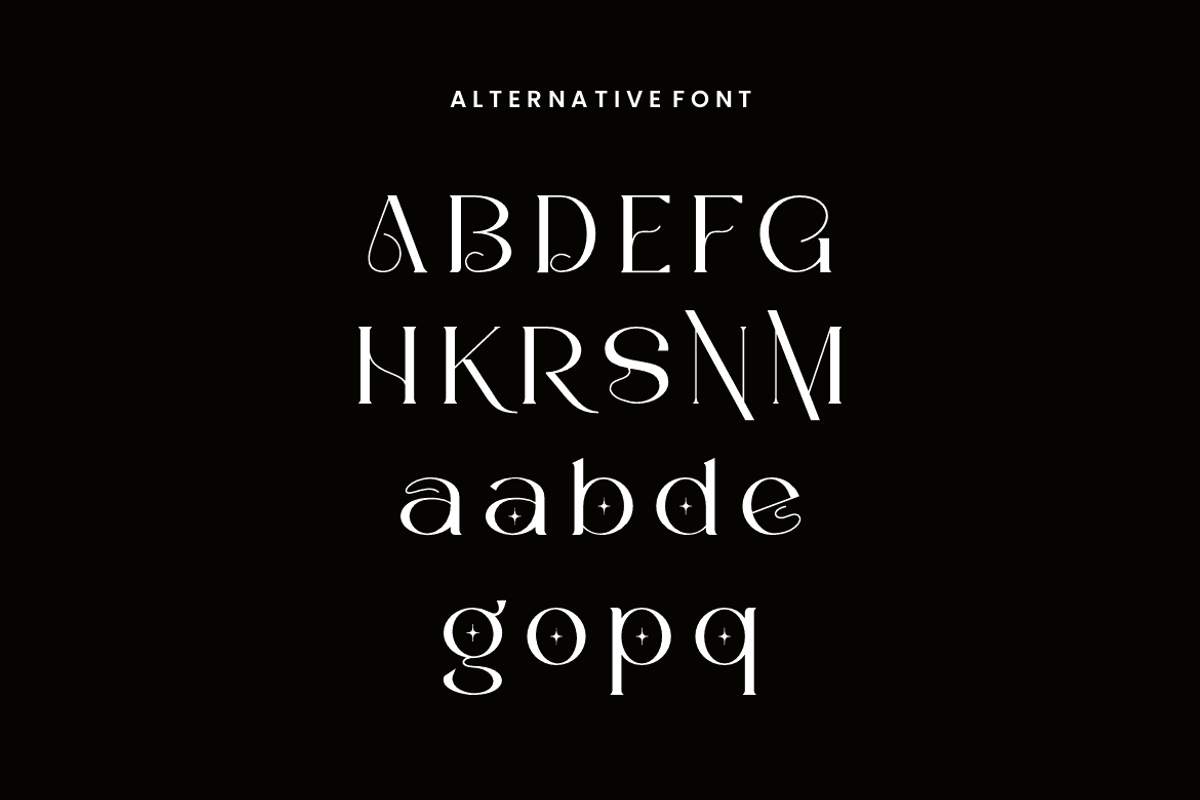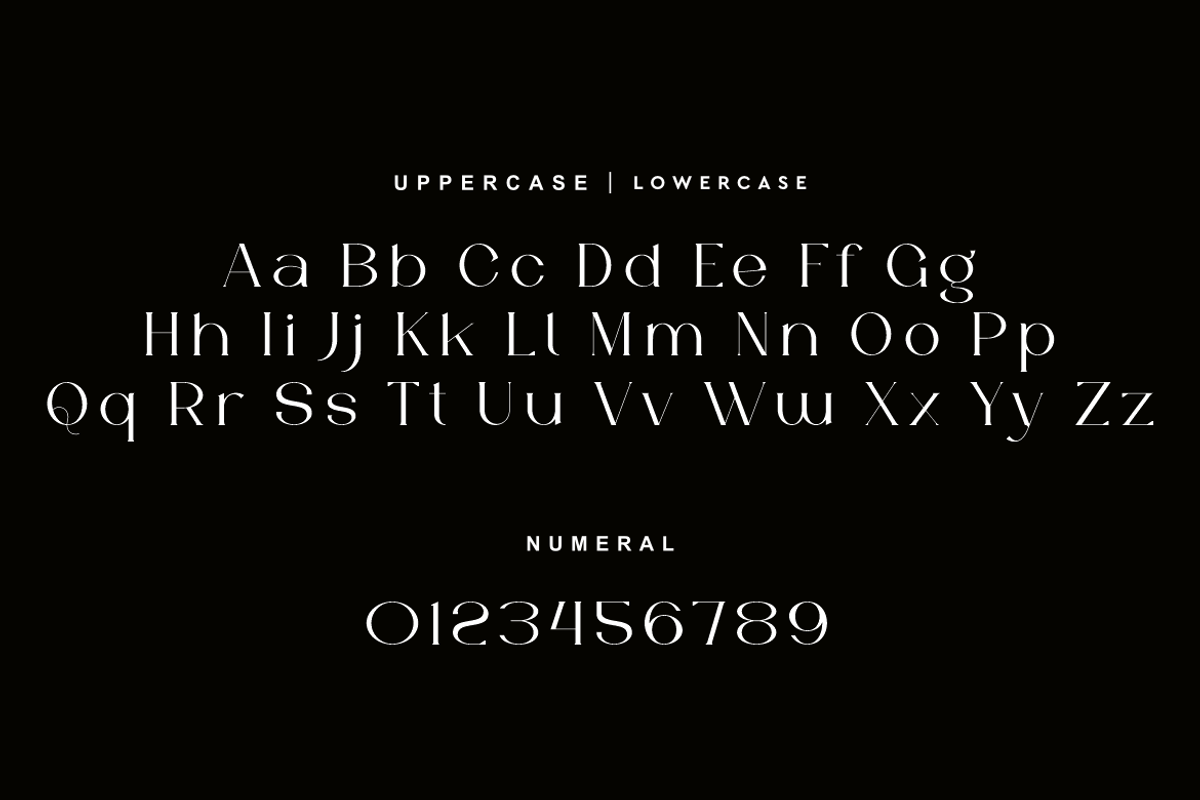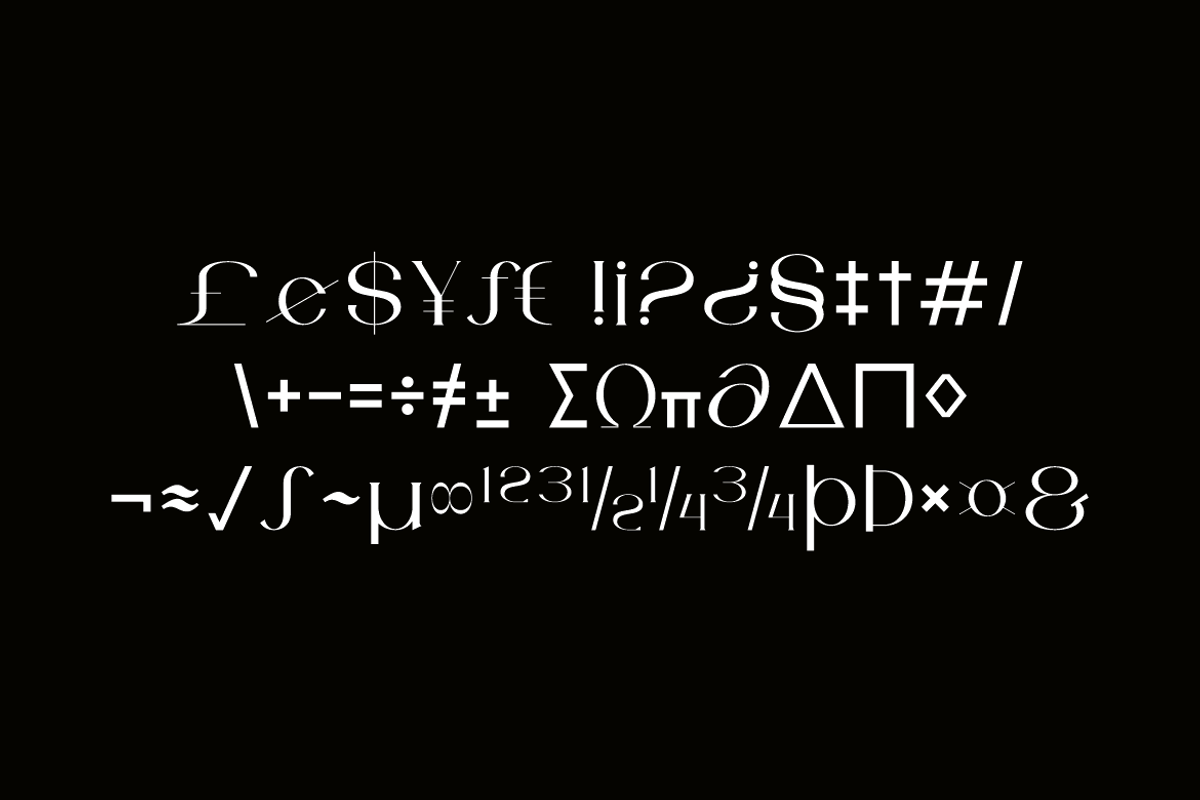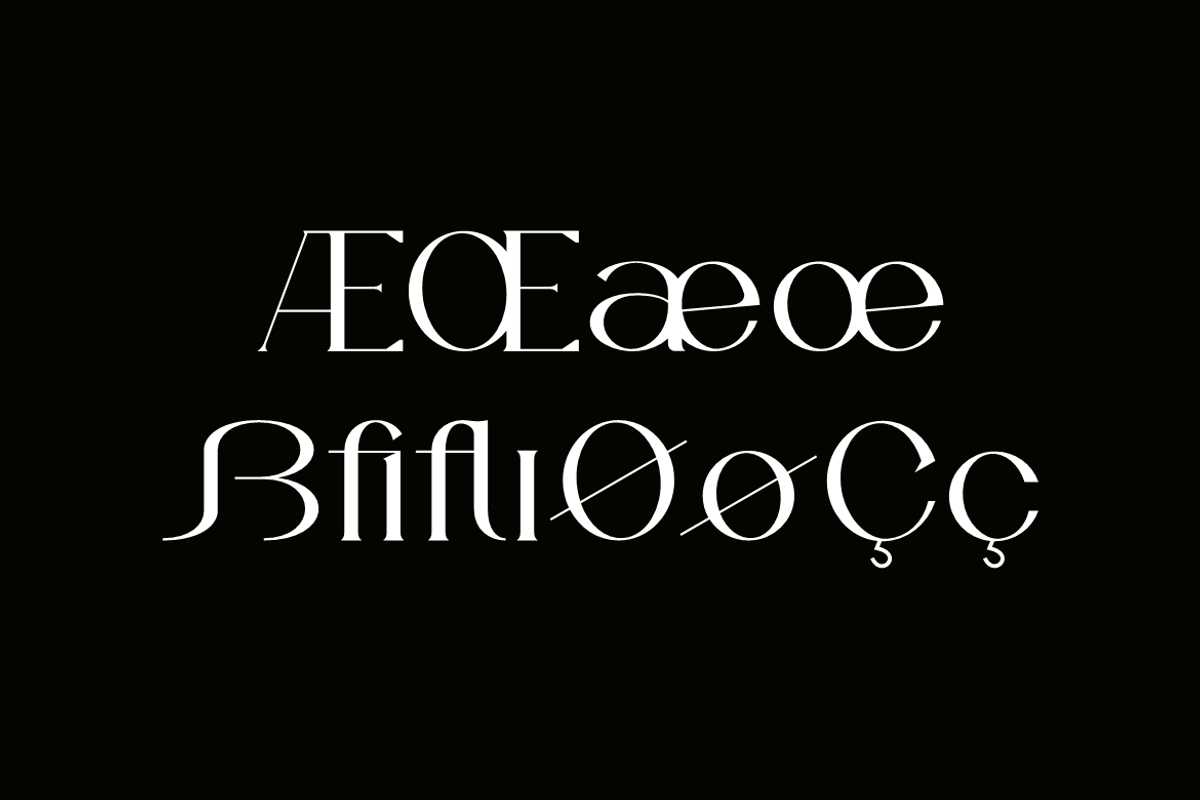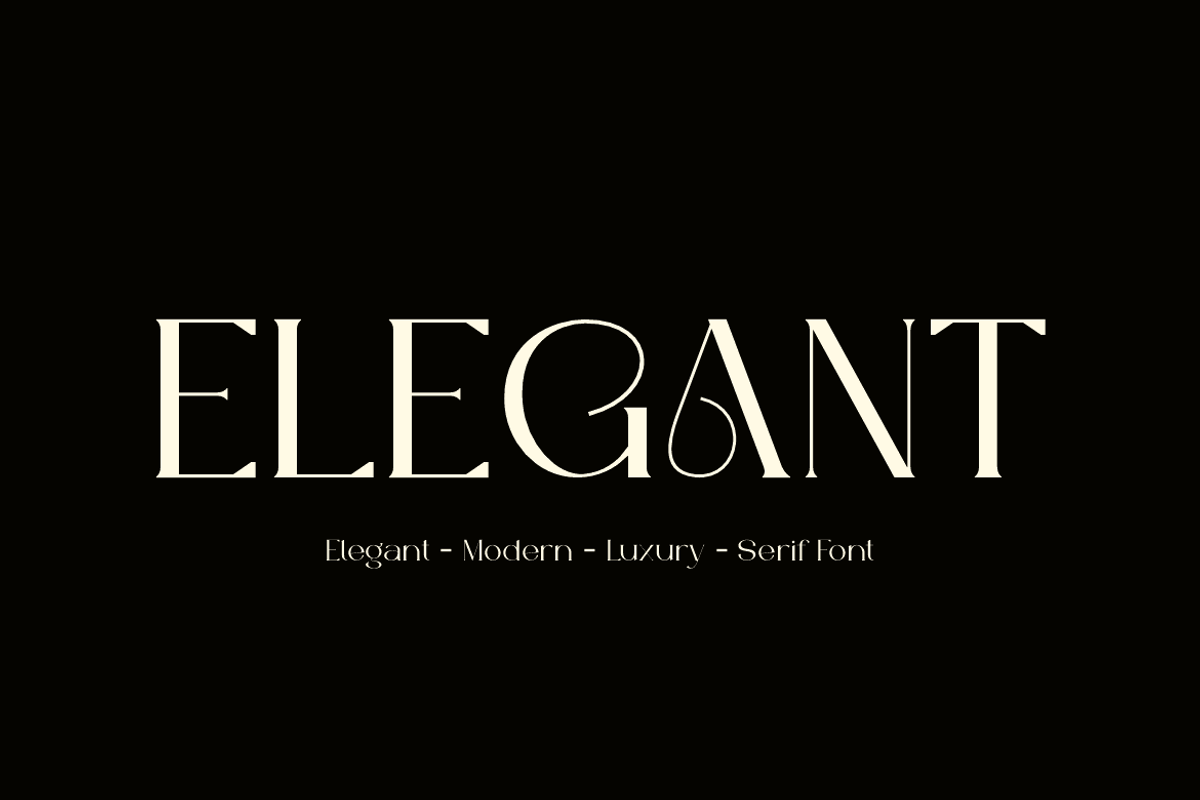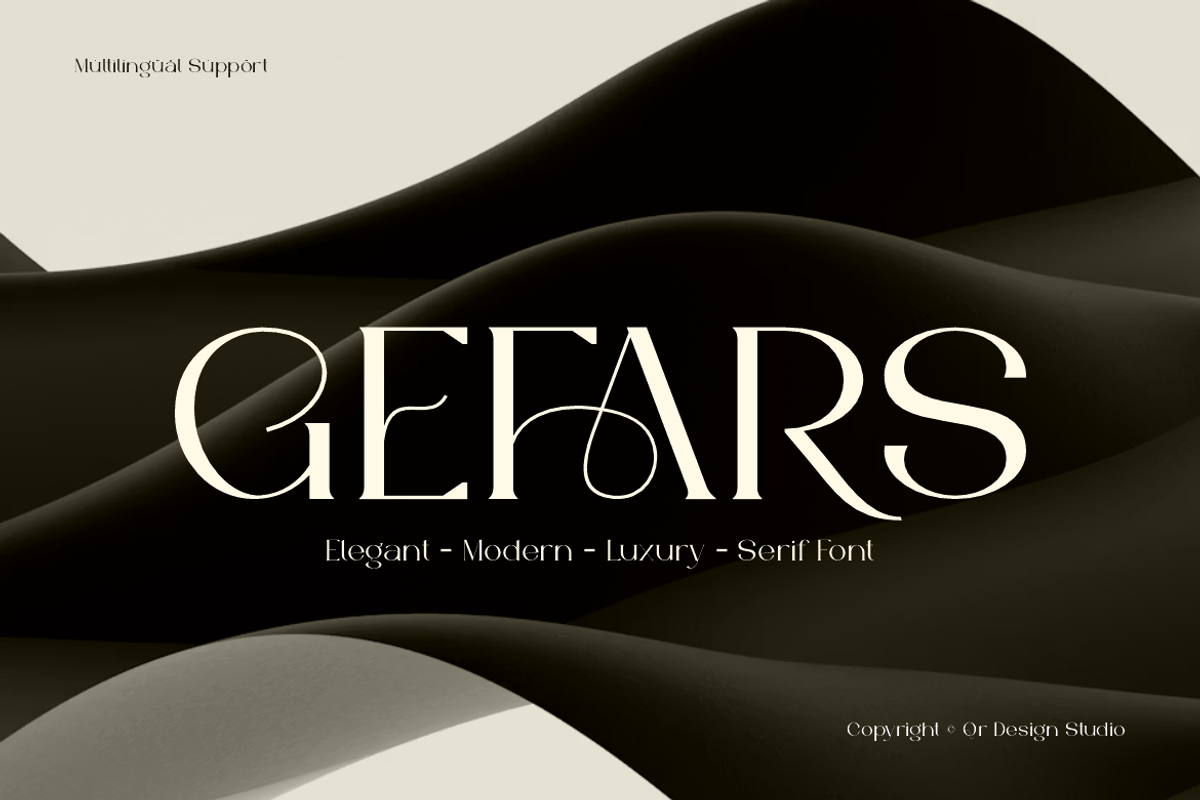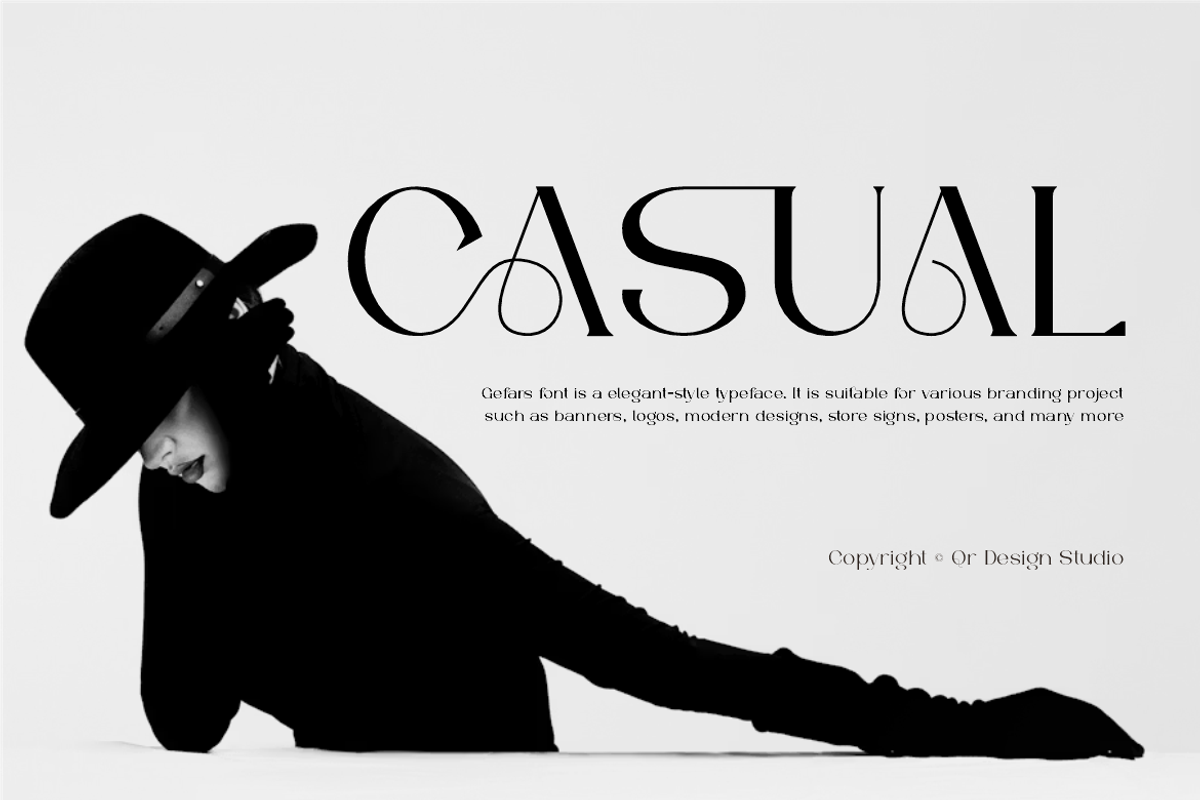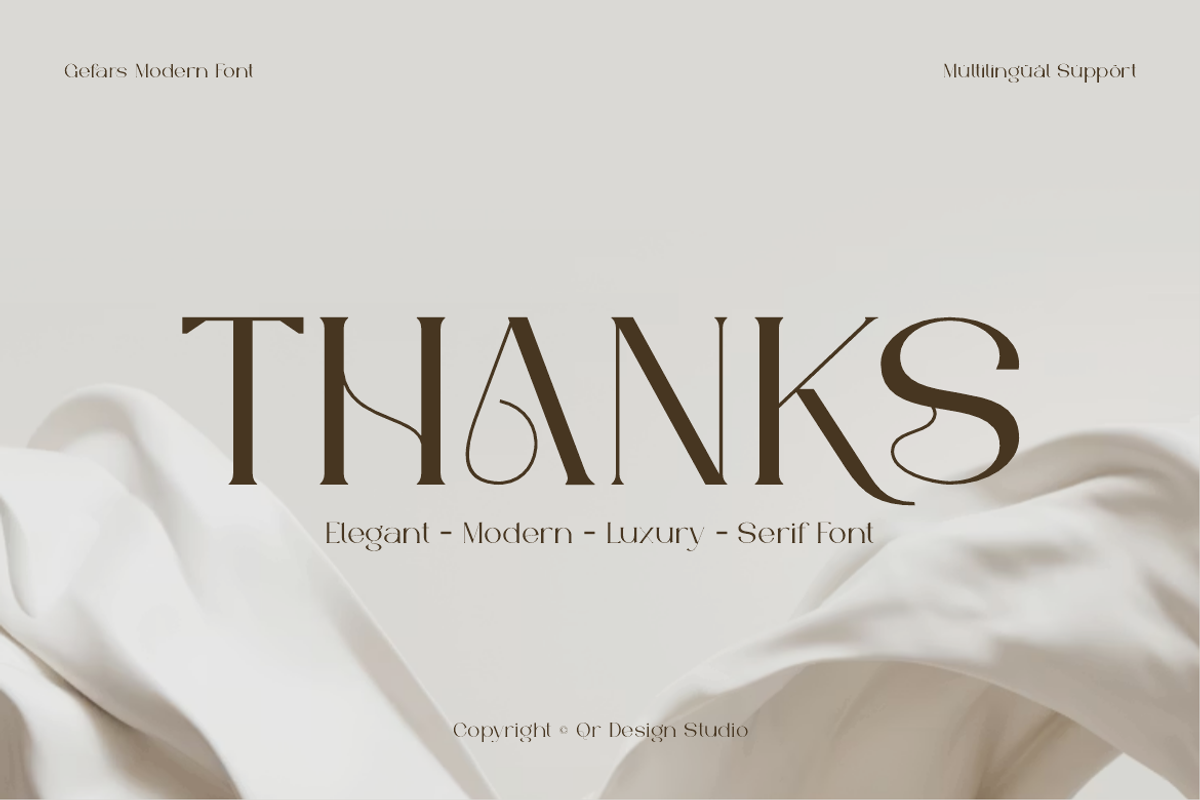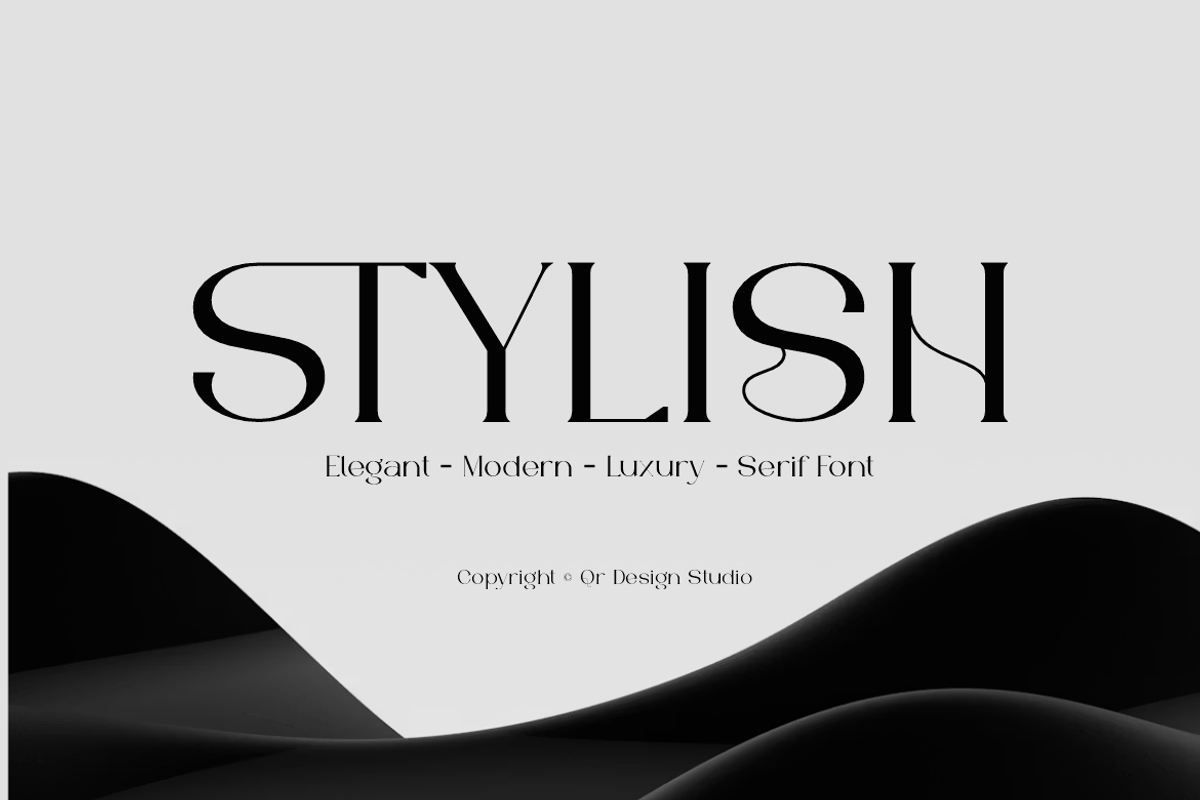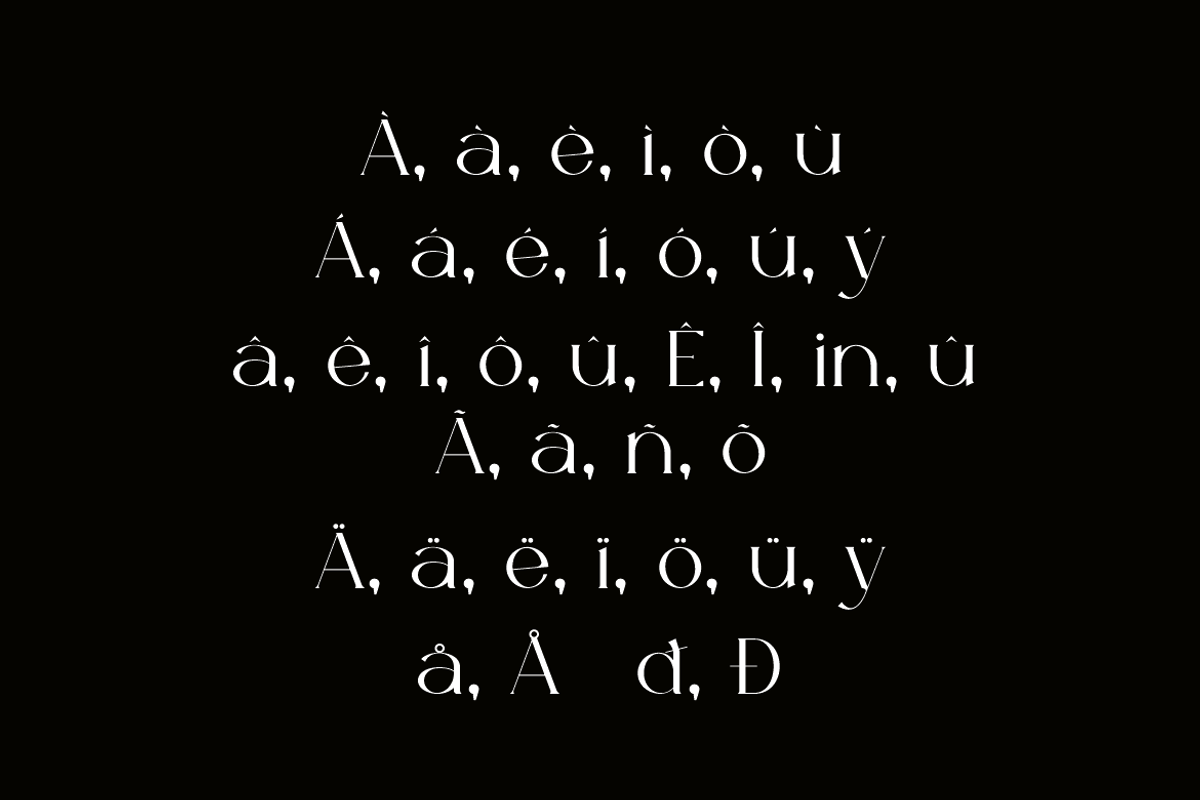
Gefars - Modern Ligature Serif Font
Gefars Font is a serif and authentic display typeface. It’s perfect for various branding projects such as logos, modern designs, and more. This font stands out beautifully in a wide range of contexts.